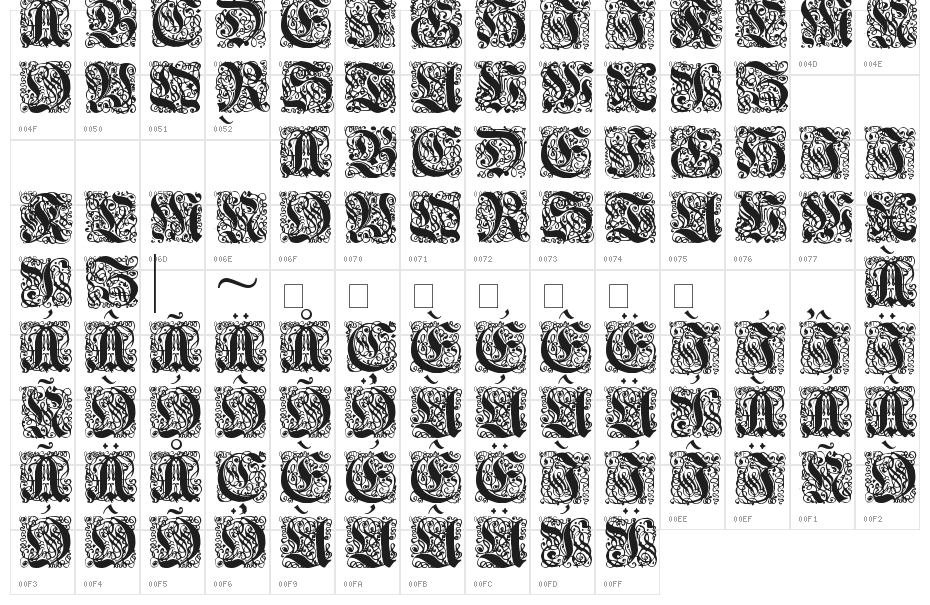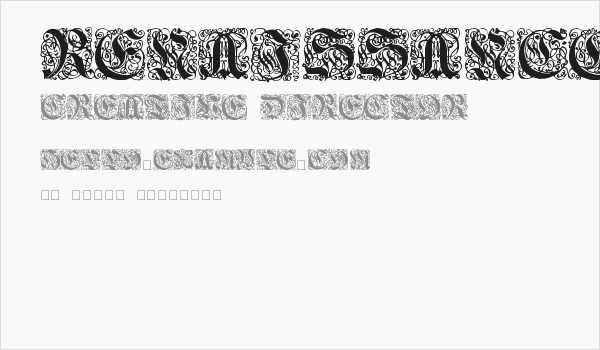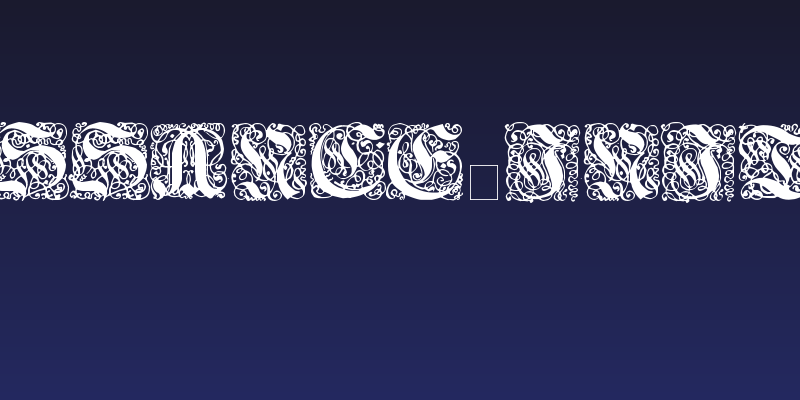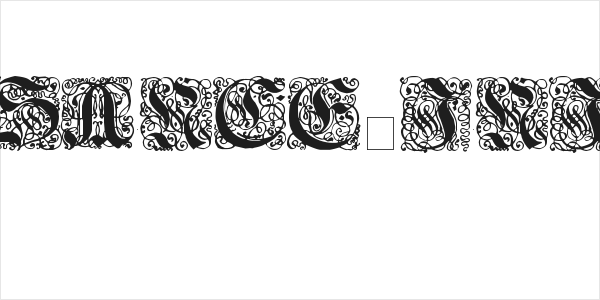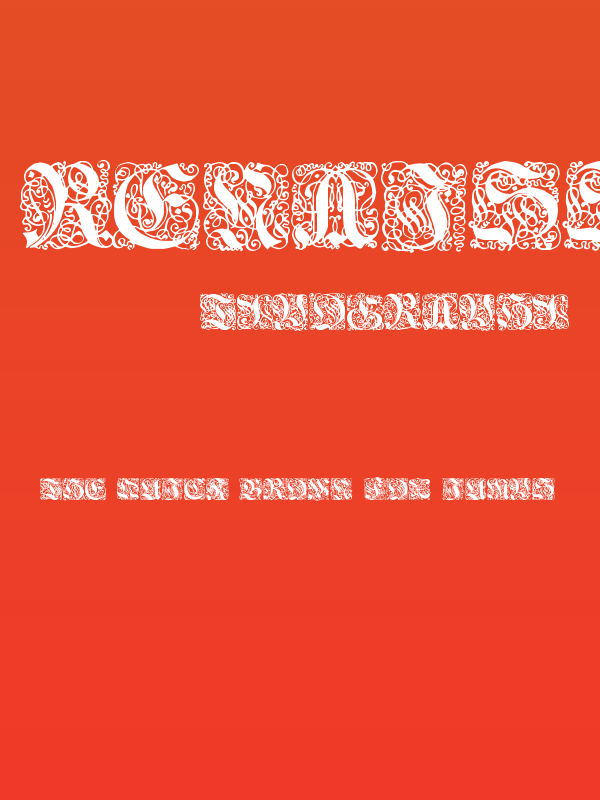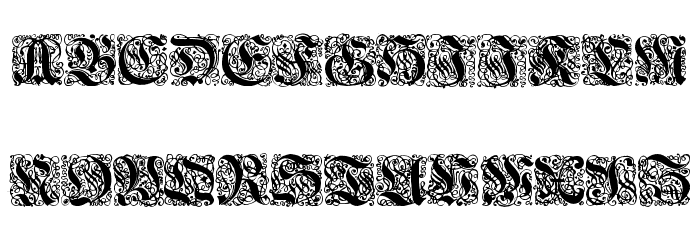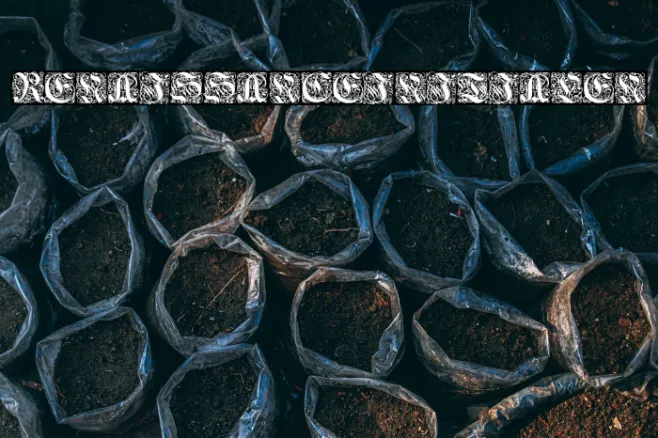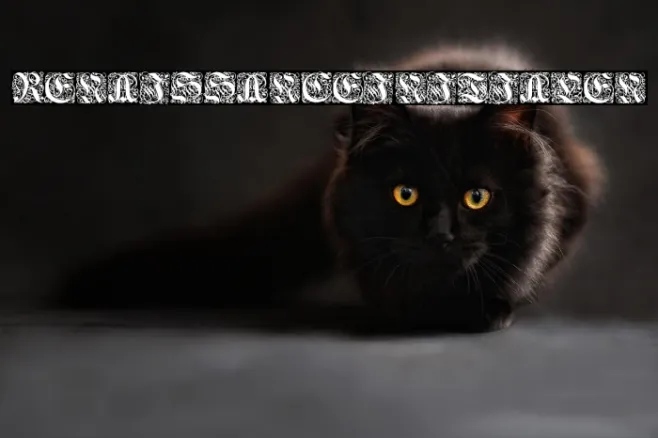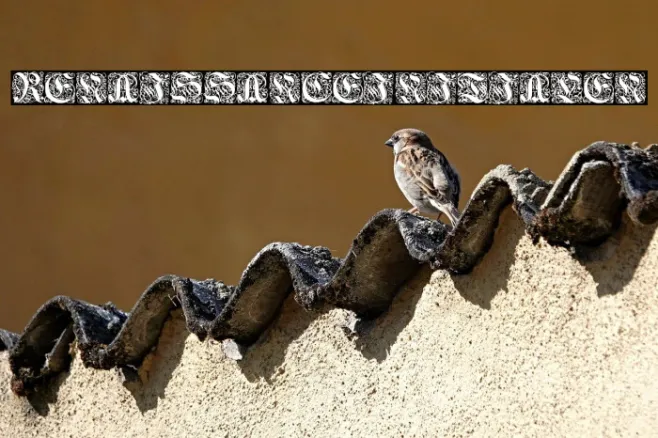
Renaissance-Initialen Font
Renaissance-Initialen Description
This font is a highly decorative and ornate typeface, characterized by intricate swirls and flourishes that evoke a sense of historical elegance. Each letter is encased in a square, filled with elaborate patterns reminiscent of Renaissance art. The design is complex, with each character appearing as a miniature piece of artwork. The font's style is reminiscent of illuminated manuscripts, making it suitable for projects that require a touch of classical sophistication and artistic flair.
| Use Case | Logos, Headlines, Decorative purposes |
| Proposed Projects | Ideal for use in wedding invitations, historical-themed publications, luxury branding, and artistic projects that require a classical and sophisticated touch. |